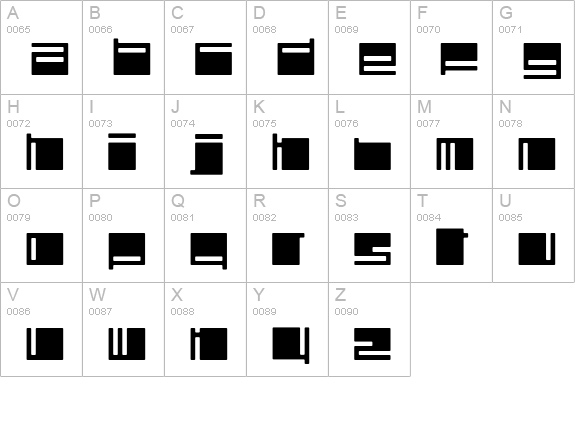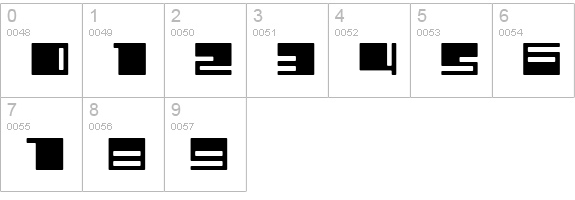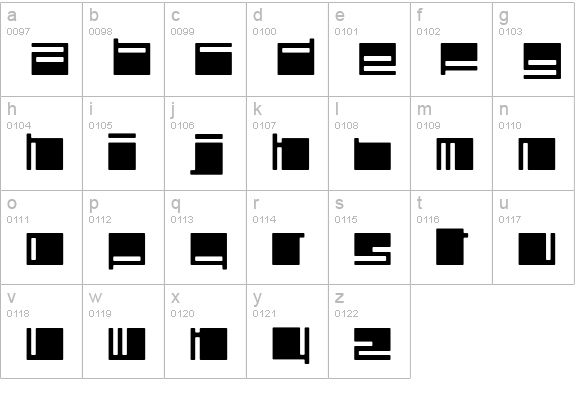
Polydiscous Font Details
Polydiscous font is a unique and versatile typeface that combines modernity with elegance. Its sleek and stylish design makes it suitable for a wide range of projects, from branding to editorial design. With its clean lines and distinctive geometric shapes, Polydiscous font is sure to make a bold statement wherever it is used. What sets Polydiscous font apart is not only its aesthetic appeal but also its accessibility. This font is available for free download at FontsMarket.com, making it easy for designers and creatives to incorporate it into their work without any hassle. Whether you're looking to add a touch of sophistication to your designs or simply want to experiment with a new typeface, Polydiscous font is the perfect choice. Download it today and unleash your creativity with this stunning font.